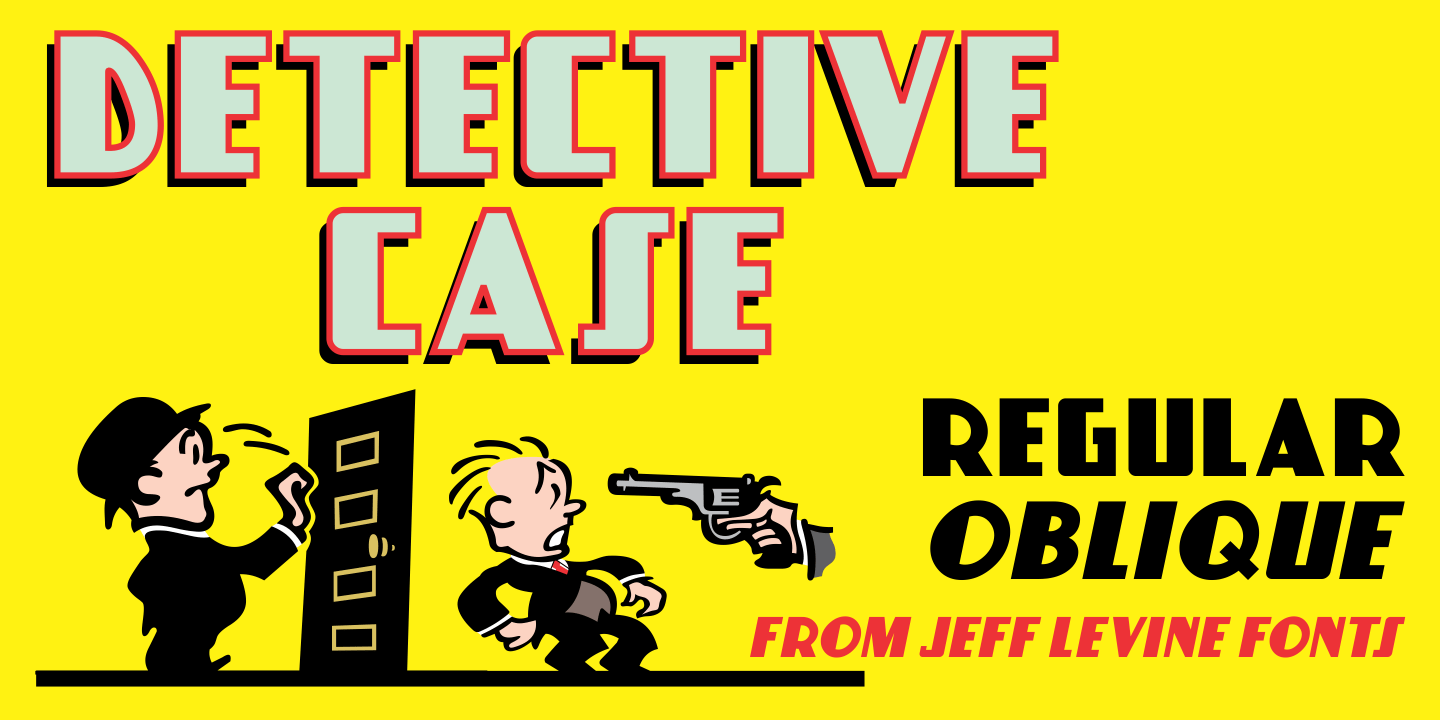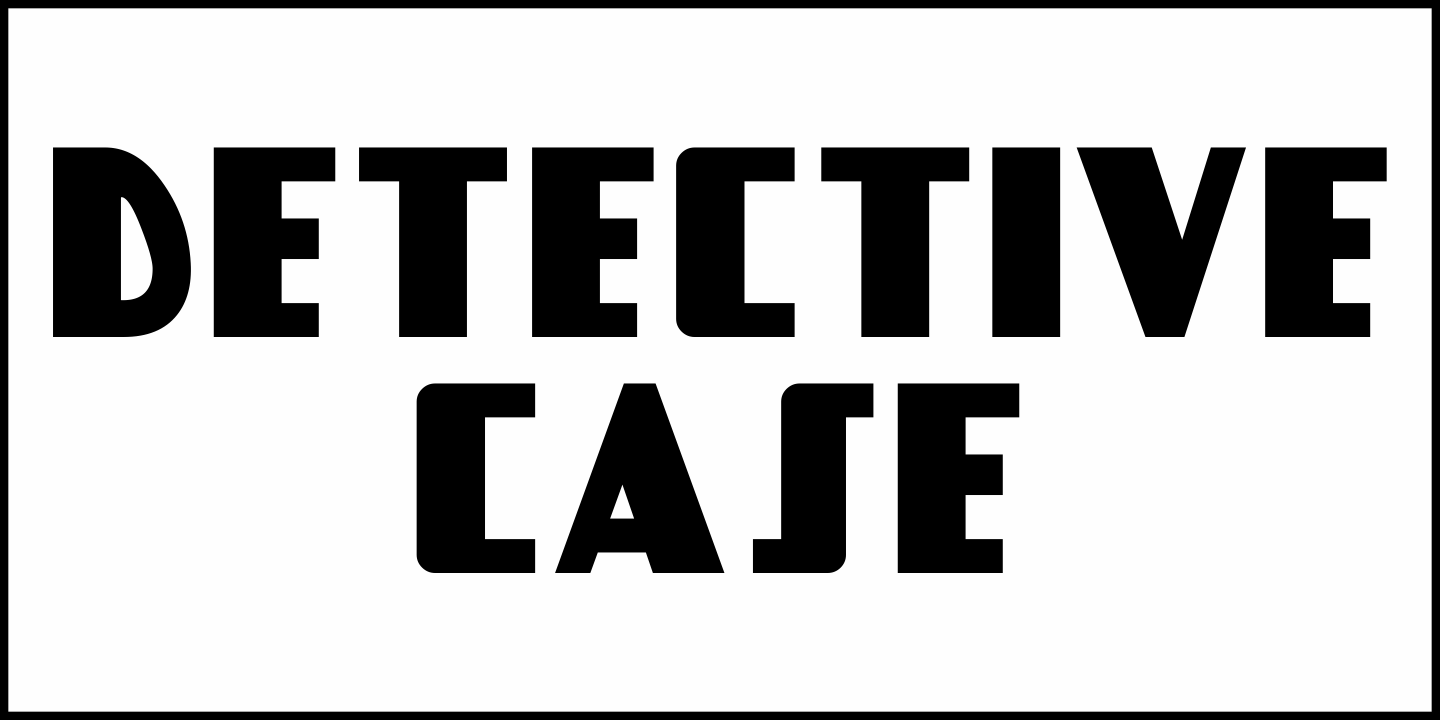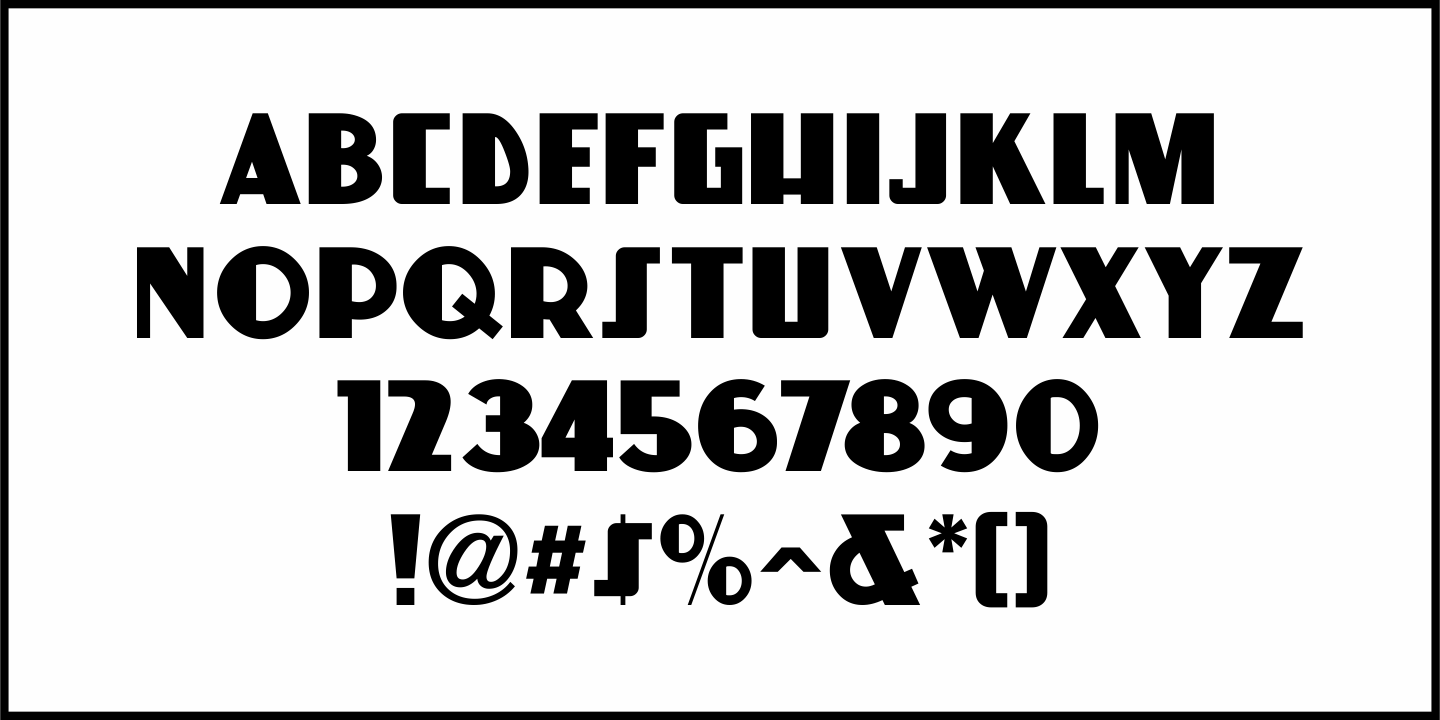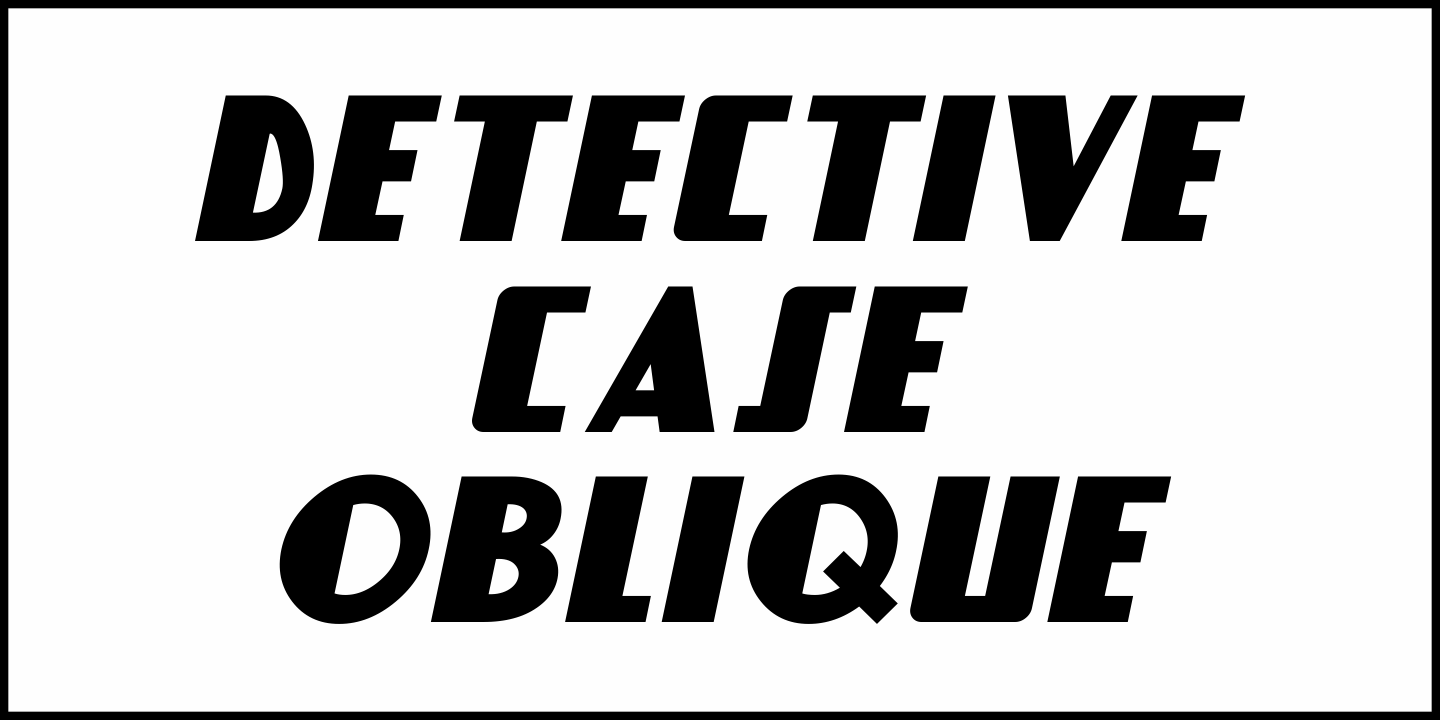
Detective Case
The cover title for 'Private Detective” magazine (from October, 1942) was hand lettered in a stylized, extra bold Art Deco type design which is now available as Detective Case JNL in both regular and oblique versions.